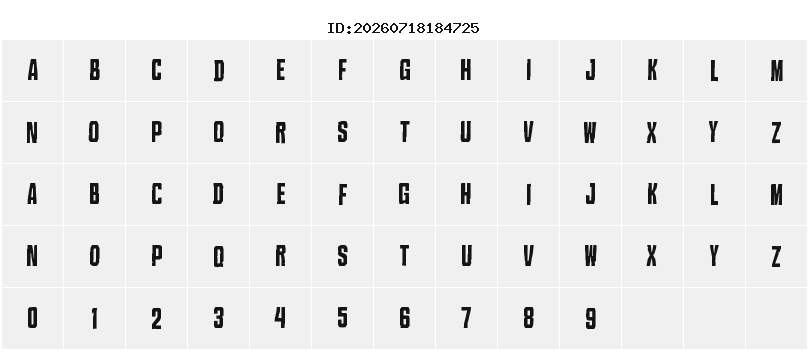
• Font Name: Croteau
• Designer: Ray Larabie
Croteau.ttf is a modern, elegant sans-serif font designed for ultimate readability and visual harmony. Perfect for branding, headlines, web design, and print materials.